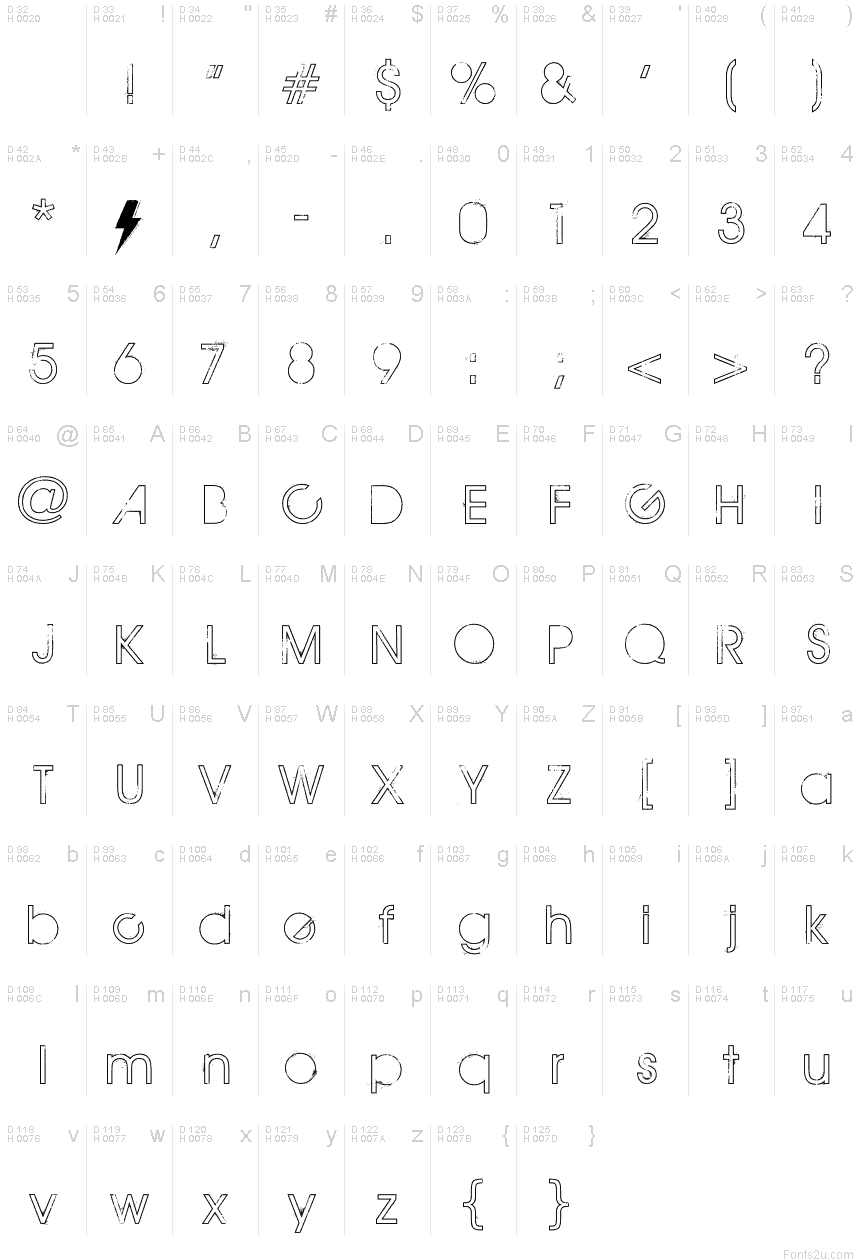
The Maple Origins by Last Soundtrack is a free eroded outline display font with tall, geometric caps and a stark industrial edge. Its slender letterforms are built from mostly even strokes, squared corners, and broad open interiors. Irregular scratches and missing segments break through the outlines.
Designers working in alternative music, streetwear, or experimental arts will find it suited to album covers, apparel graphics, and event posters, where the damaged contours can echo distressed photography or rough print textures. Its fractured construction also belongs comfortably in dystopian entertainment and urban-themed editorial design, turning the lettering into part of a worn, uneasy setting.